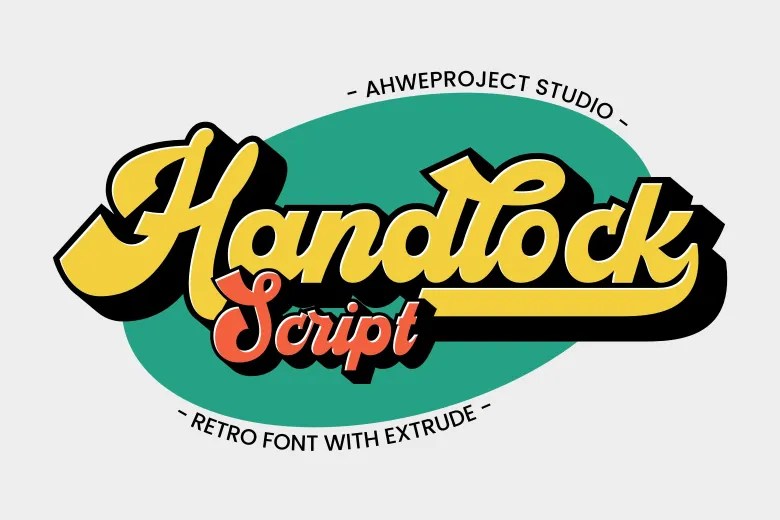
Handlock Font
Handlock is a bold, retro-style script font that exudes a sense of resilience and character. With its tough-talking, nostalgic vibe, this font adds a distinctive touch to any design. Ideal for vintage-inspired posters, stickers, apparel, and social media posts, Handlock brings a unique, old-school charm that resonates with audiences.
Its robust and resilient appearance makes Handlock perfect for projects that aim to evoke a sense of nostalgia and boldness. Whether you’re creating eye-catching designs for promotional materials or adding a retro flair to your branding, this font ensures your message stands out with personality and style.